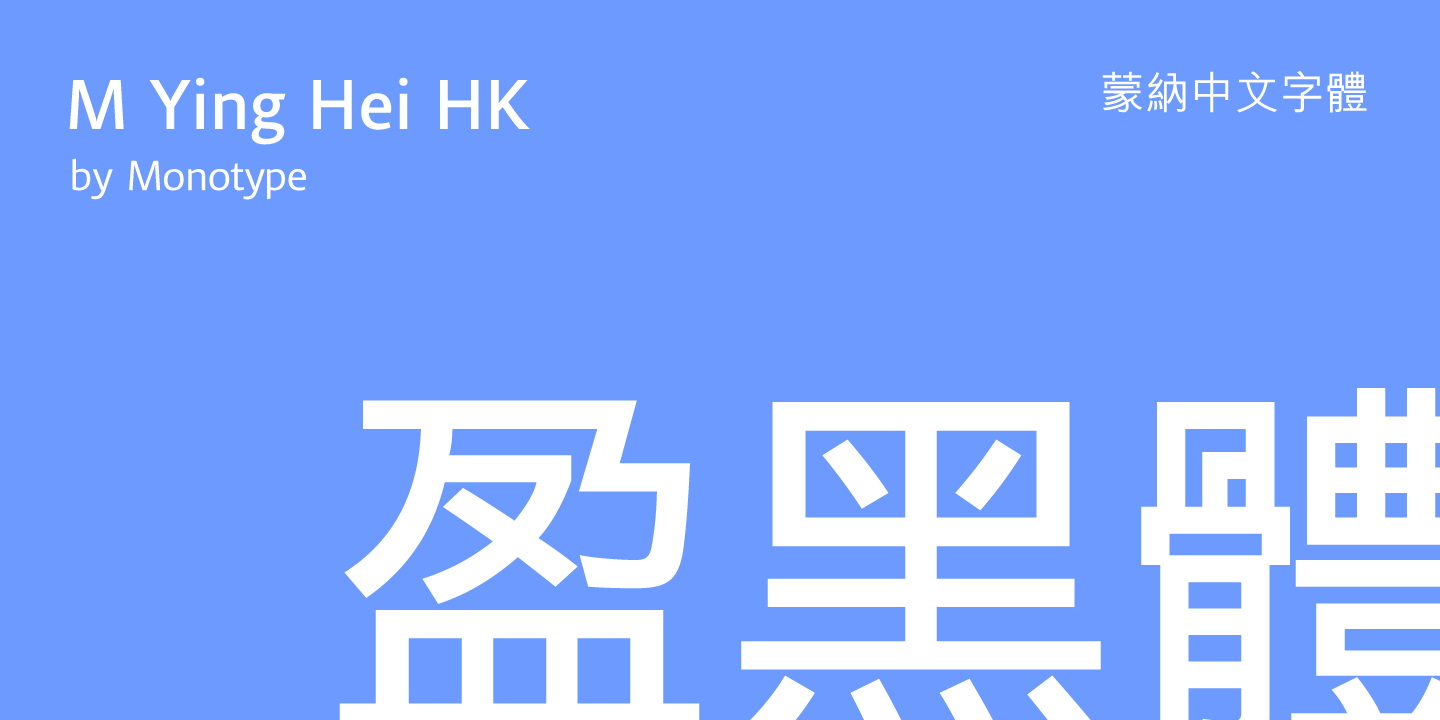
M Ying Hei HK Font is perfect for Hong Kong business communications, traditional Chinese publications, Asian cultural events, Chinese restaurant branding, international corporate materials, multilingual signage systems, and modern East-West design projects that require authentic Chinese typography with contemporary appeal.
This font is exciting because it harmoniously balances traditional Chinese calligraphy heritage with modern Hong Kong design aesthetics, featuring carefully crafted Chinese characters that honor cultural traditions while ensuring optimal readability for contemporary digital and print applications.
The M Ying Hei HK Font family includes light, regular, medium, and bold weights with traditional variants, offering complete Traditional Chinese character sets, punctuation marks, numerical systems, cultural symbols, and specialized elements designed for authentic Chinese typographic applications.
Asian typography specialists consistently choose M Ying Hei HK Font Free Download for projects requiring authentic Chinese character representation and Hong Kong cultural sophistication. This distinguished typeface transforms Chinese communications into compelling statements of cultural heritage that immediately resonate with Chinese-speaking communities and international audiences seeking genuine Asian design authenticity. The font's cultural character makes it exceptionally effective for Chinese businesses, cultural institutions, and international brands where Chinese tradition and modern accessibility must be perfectly balanced for diverse global markets. Its Hong Kong heritage bridges traditional Chinese calligraphy with contemporary international design standards, making it invaluable for organizations serving Chinese communities and promoting cross-cultural understanding. The meticulously crafted Chinese characters maintain their cultural authenticity across digital platforms and traditional print media, ensuring consistent brand recognition and Chinese readability. Whether you're developing Chinese business identities, creating multilingual corporate communications, or designing Asian cultural celebration materials, this typeface provides the authentic voice and visual tradition that distinguishes respectful Chinese typography from generic multilingual fonts, establishing immediate credibility among Chinese readers who appreciate authentic character formation and expect the highest standards of Chinese typographic quality in their business and cultural communications.